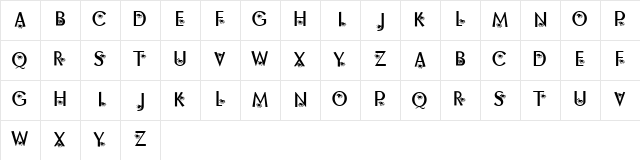
KR Along Came A Spider Regular
KR Along Came A Spider is a composed and adaptable typeface that performs quietly and consistently across a wide range of design contexts.